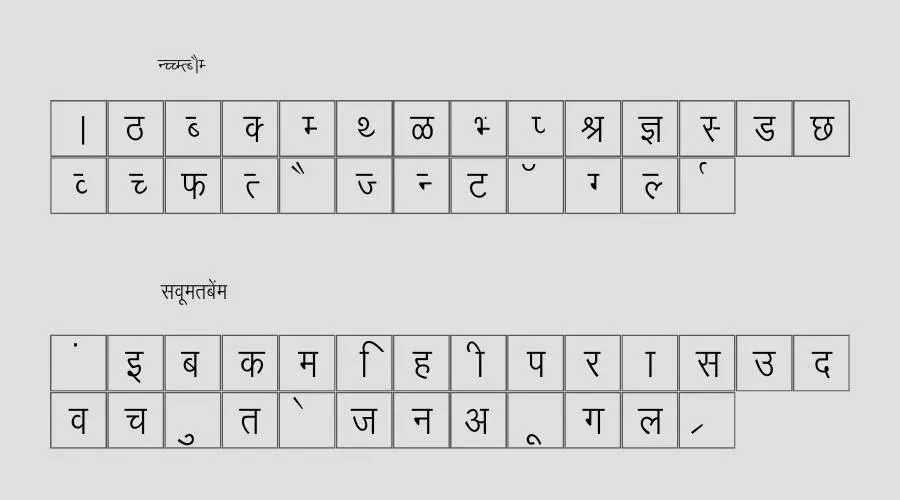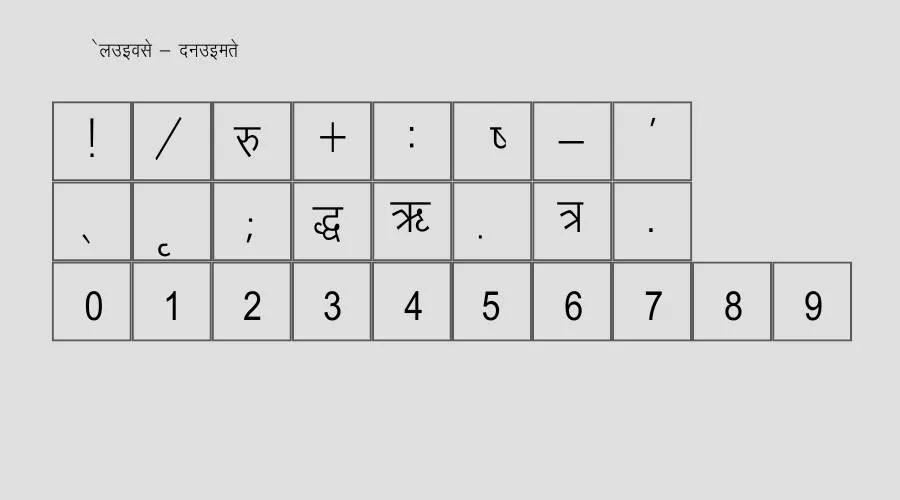
About Devlys 010 Font
The Devlys 010 font looks like the Hindi typeface and belongs to the sans serif texture family. It was invented by a well-known typographic designer named Satpal Singh with both OTF and TTF file formats. You may easily get this font free and utilize it on your various operating systems like Google’s Android OS, Linux Operating System, Apple iOS, Apple macOS, and Microsoft Windows.
This font has an online generator tool, in which you can transform all your normal types of alphabet characters into stylish and trendy shapes. When this gorgeous font was published in the font world, it gained soo much favor in a very short time. You can combine this font easily with the chiller font, and make luxury tasks.
It contains different kinds of characters such as uppercase letters, digits, symbols, numerals, signs, and punctuations. This font comes in 4 unique weights and more than 100 glyphs. It is the perfect choice for CSS and adobe photoshops.
The Devlys 010 Font is perfect for different kinds of designs, and projects. This font was inspired in the 20th century by a famous foundry with an attractive and unique texture look impression. You can utilize this font for making logo designs, posters, heading, and titles.
A lot of graphic designers utilize this font with the sanskrit font for different purposes. It is suitable for Email marketing templates, PowerPoint presentations, e-Books, Newspapers, Newsletters, and Directories. This stunning typeface used many windows software and application such as Apple macOS, Microsoft Windows, Google’s Android OS, Linux Operating System, and Apple iOS.
What type of font is Devlys 010 Font?
The Devlys 010 font looks like the Hindi typeface and belongs to the sans serif texture family. This font has both file formats OTF and TTF.
Who designed the Devlys 010 Font?
It was invented by a well-known typographic designer named Satpal Singh with a unique and stunning texture look impression.
Where can I utilize the Devlys 010 Font?
This font was inspired in the 20th century by a famous foundry with an attractive and unique texture look impression. You can utilize this font for making logo designs, posters, heading, and titles.